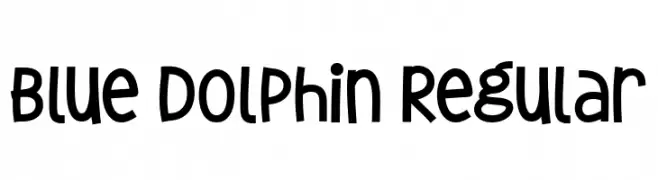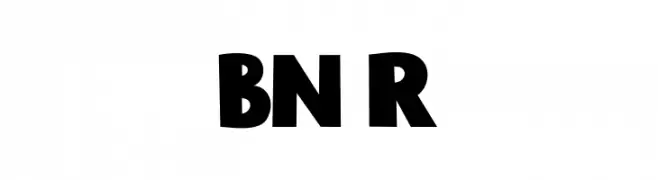
A bold, expressive handwritten font with dynamic curves and a playful feel.
A bold, geometric font with a playful and dynamic style.
A playful, hand-drawn font with bold, irregular strokes and a whimsical style.
A playful, hand-drawn style font with bold, rounded characters.